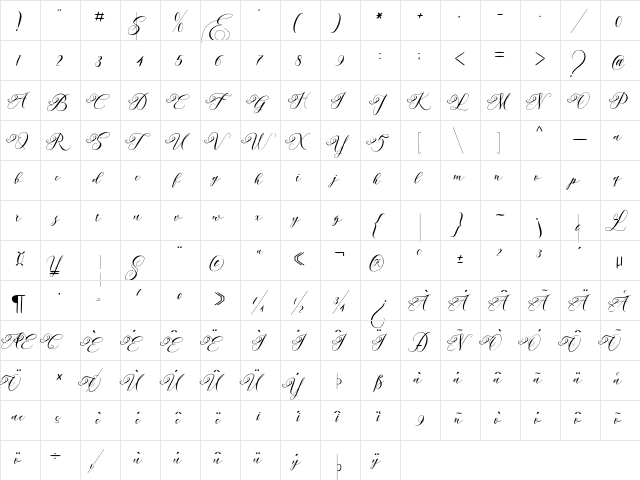
Andeglei Regular
Design Context for Andeglei Typeface
Andeglei is a composed and adaptable typeface that performs quietly and consistently across a wide range of design contexts.